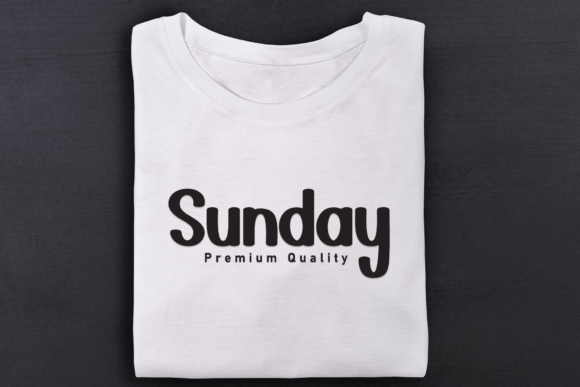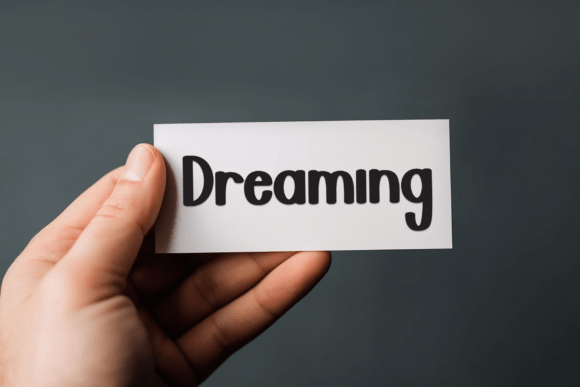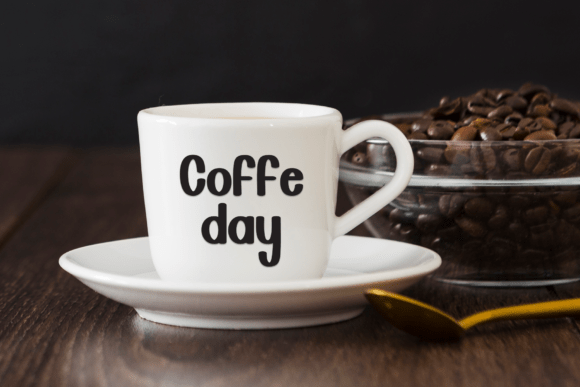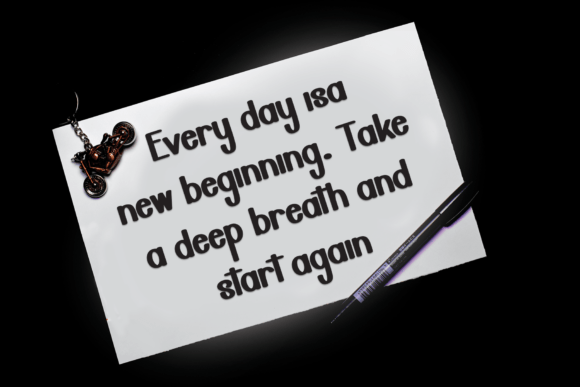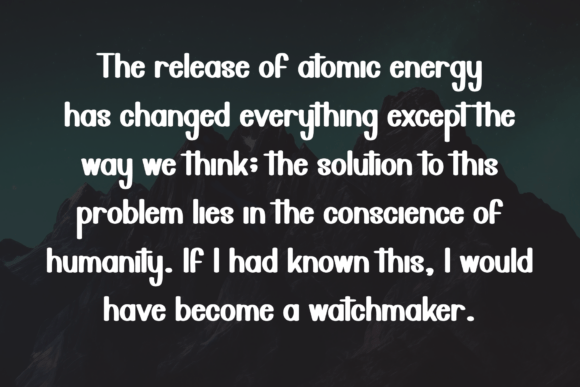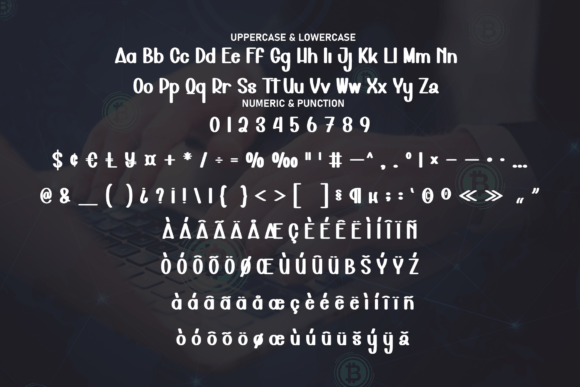
Introducing Blockchains Font: The Charming Handwritten Display Font
Are you looking for a font that can add a touch of coziness and personality to your designs? Look no further than Blockchains Font, a charming handwritten display font that is sure to captivate your audience. With its affable character and enchanting spirit, this typeface is perfect for designers and crafters who want to create unique and engaging artwork.
The Inspiration Behind Blockchains Font
Blockchains Font is perfectly named to reflect its warm and friendly character. This font is designed to capture the essence of a sincere handwritten note, with a jovial vibe that is reminiscent of a dreamy doodle basking in sunshine. Its radiant energy is infectious and uplifting, making it the perfect choice for designers who want to create artwork that is lively and engaging.
Perfect for Personalizing Your Designs
Blockchains Font is ideal for personalizing wedding invitations, greeting cards, or any artwork that longs for a lively pop. With its captivating appeal, this font weaves a captivating allure into your designs, making them irresistibly engaging and hard to ignore. Whether you’re a designer or crafter, this font is sure to become a favorite in your collection.
What Makes Blockchains Font So Special?
So, what sets Blockchains Font apart from other fonts? Here are just a few features that make it so special:
• Handwritten charm: Blockchains Font has a unique, handwritten quality that gives it a personal and relatable feel.
• Display font: This font is designed to make a statement, with bold and eye-catching letterforms that are perfect for headlines and titles.
• Coziness and warmth: Blockchains Font has a warm and inviting feel that is sure to make your designs feel cozy and welcoming.
• Versatility: This font is perfect for a wide range of design projects, from wedding invitations to greeting cards, and even digital artwork.
How to Use Blockchains Font in Your Designs
Blockchains Font is easy to use and can be incorporated into a wide range of design projects. Here are a few ideas to get you started:
• Wedding invitations: Use Blockchains Font to create beautiful and personalized wedding invitations that will set the tone for your special day.
• Greeting cards: Add a touch of personality to your greeting cards with Blockchains Font, perfect for birthdays, holidays, and other special occasions.
• Digital artwork: Use Blockchains Font to add a handwritten touch to your digital artwork, such as illustrations, graphics, and more.
Tips and Tricks for Getting the Most Out of Blockchains Font
Here are a few tips and tricks to help you get the most out of Blockchains Font:
• Experiment with colors: Blockchains Font looks great in a wide range of colors, so don’t be afraid to experiment and find the perfect hue for your design.
• Mix and match: Try pairing Blockchains Font with other fonts to create a unique and eye-catching combination.
• Play with texture: Add some texture to your design by incorporating Blockchains Font into a background or overlay.